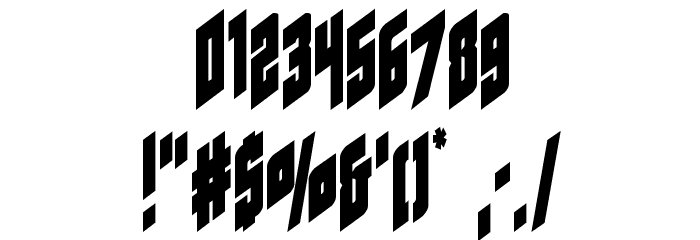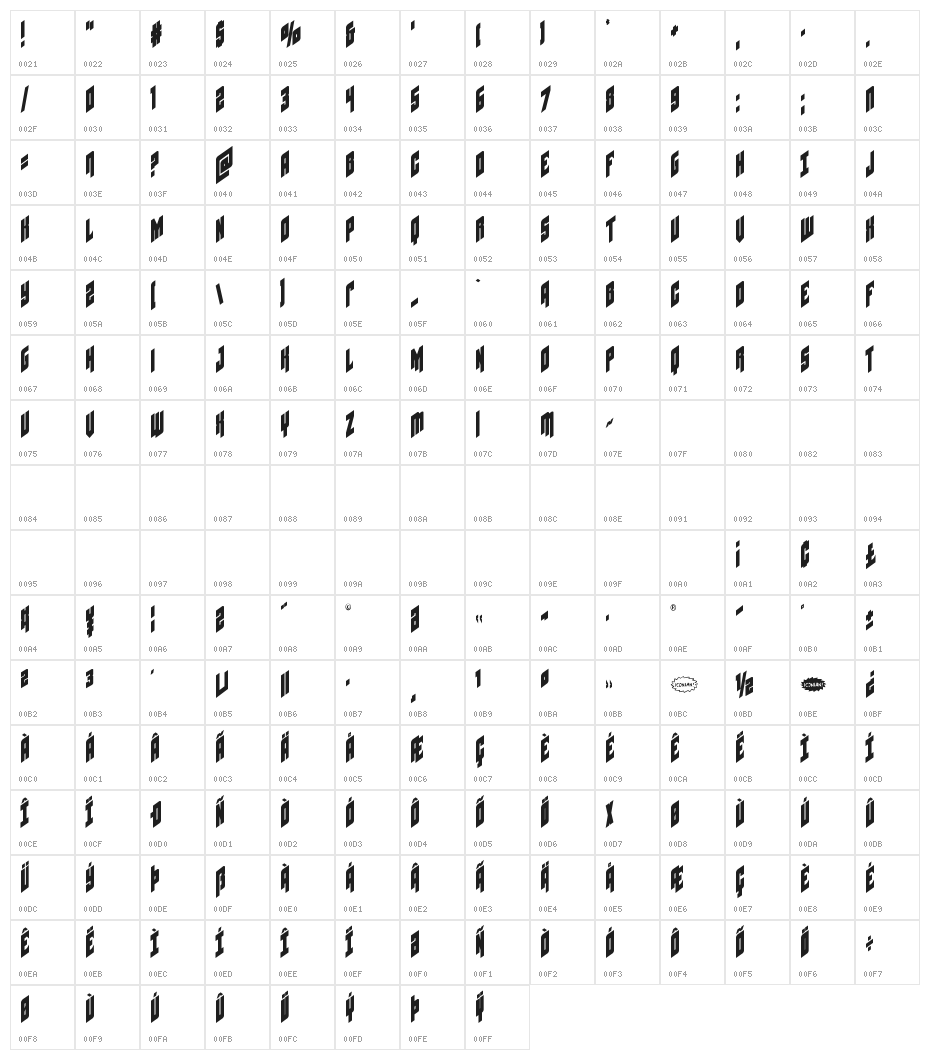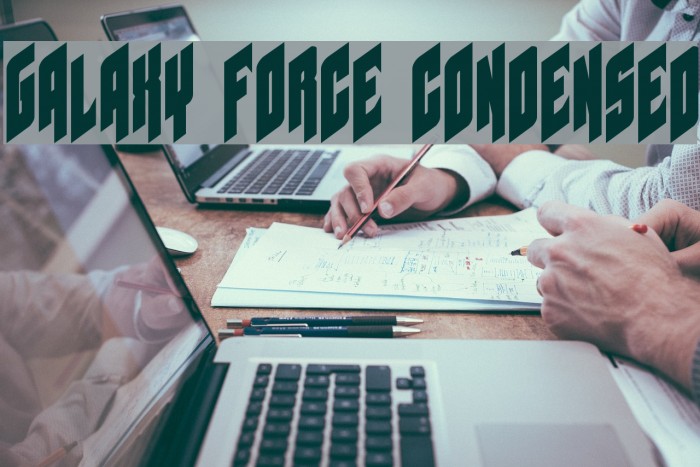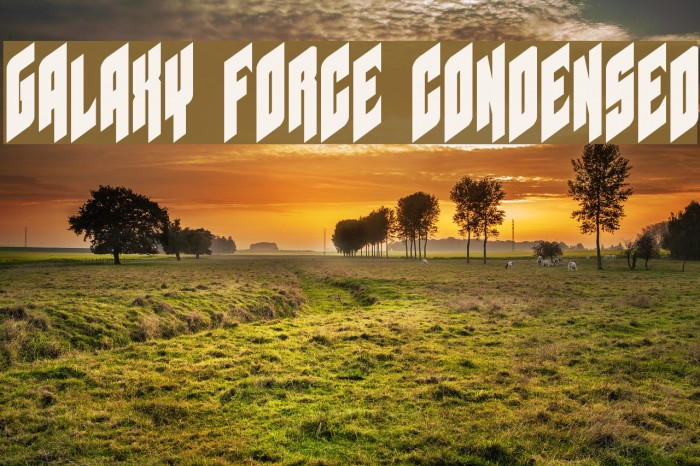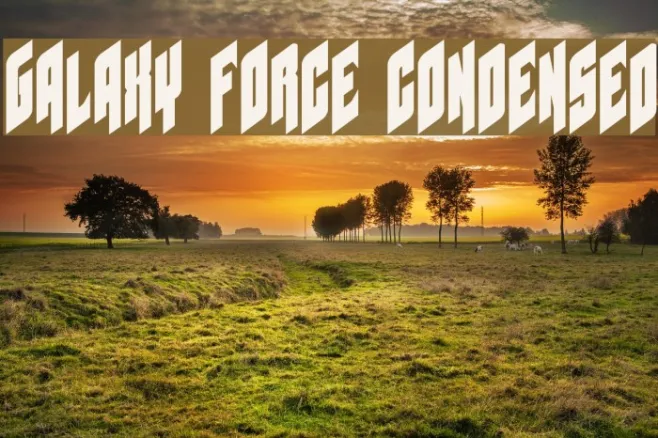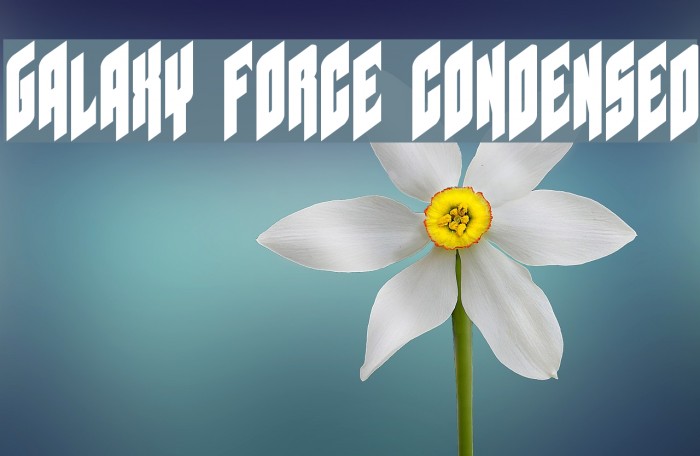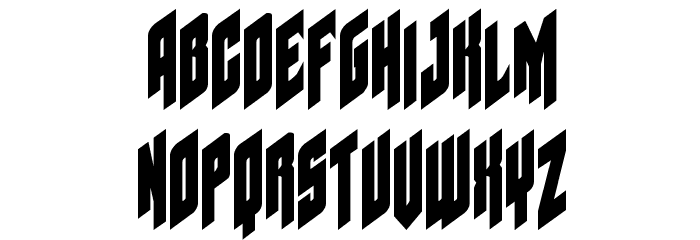
Galaxy Force Condensed Font
Galaxy Force Condensed Description
This font features a bold and dynamic design with a futuristic and angular aesthetic. The characters are sharply cut with a condensed width, giving them a compact and powerful appearance. The strokes are thick and consistent, providing a strong visual impact. The slanted orientation adds a sense of motion and energy, making it ideal for projects that require a modern and edgy look. The font includes a full set of uppercase and lowercase letters, numbers, and a variety of special characters, ensuring versatility in use.
| Proposed Projects | Ideal for sci-fi themed posters, video game titles, and branding for tech companies. |